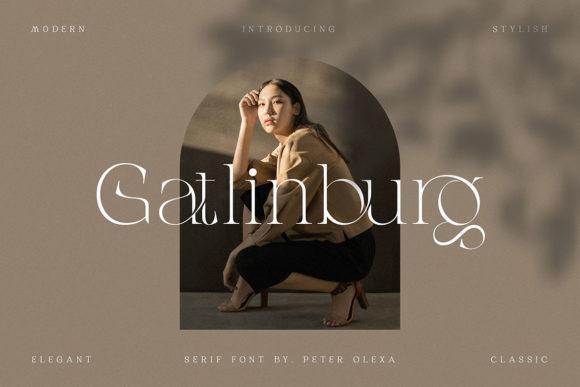
Gatlinburg Font: Elevate Your Design with Elegance and Sophistication
In the world of typography, fonts play a crucial role in conveying the tone and personality of a design project. Among the numerous fonts available, Gatlinburg font stands out for its unique blend of elegance, sophistication, and luxury. This article will delve into the features and benefits of Gatlinburg font, exploring how it can elevate your design projects to new heights.
What is Gatlinburg Font?
Gatlinburg font is a thin lettered and delicate serif font that exudes luxury and refinement. Its slender lines and intricate details make it an ideal choice for designers seeking to add a touch of sophistication to their work. Gatlinburg font is designed to make a statement, perfect for projects that require a high level of elegance and poise.
Key Features of Gatlinburg Font
- Thin Lettered and Delicate: Gatlinburg font boasts a slender and refined design, making it perfect for luxury brands, high-end products, and sophisticated designs.
- Serif Font: The font features delicate serifs that add a touch of elegance and sophistication to any design project.
- PUA Encoded: Gatlinburg font is PUA (Private Use Area) encoded, allowing easy access to all glyphs and swashes. This feature makes it simple to use and customize the font to suit your design needs.
Benefits of Using Gatlinburg Font
Gatlinburg font offers several benefits that make it an attractive choice for designers. Some of the advantages of using Gatlinburg font include:
- Luxury Appeal: Gatlinburg font adds a touch of luxury and sophistication to any design project, making it perfect for high-end brands and products.
- Versatility: The font’s delicate design and PUA encoding make it suitable for a wide range of design projects, from logos and branding to packaging and advertising.
- Ease of Use: Gatlinburg font is easy to use and customize, thanks to its PUA encoding and intuitive design.
- Unique and Distinctive: Gatlinburg font’s unique design sets it apart from other fonts, making it an excellent choice for designers seeking to create distinctive and memorable designs.
How to Use Gatlinburg Font in Your Design Projects
Using Gatlinburg font in your design projects is straightforward. Here are some tips to get you started:
- Pair with Bold Fonts: Combine Gatlinburg font with bold fonts to create a striking contrast and add visual interest to your design.
- Use for Headings and Titles: Gatlinburg font is perfect for headings and titles, where its elegant design can make a significant impact.
- Add Swashes and Glyphs: Take advantage of Gatlinburg font’s PUA encoding to add swashes and glyphs to your design, creating a unique and customized look.
In conclusion, Gatlinburg font is an exceptional choice for designers seeking to add a touch of luxury and sophistication to their design projects. Its unique blend of elegance, refinement, and versatility makes it an ideal font for a wide range of applications. With its PUA encoding and intuitive design, Gatlinburg font is easy to use and customize, making it a valuable addition to any designer’s toolkit.
Elevate Your Designs with Gatlinburg Font
Whether you’re working on a luxury brand, high-end product, or sophisticated design project, Gatlinburg font is sure to impress. Its delicate design, PUA encoding, and luxury appeal make it an excellent choice for designers seeking to create distinctive and memorable designs. Try Gatlinburg font today and experience the difference it can make in your design projects!